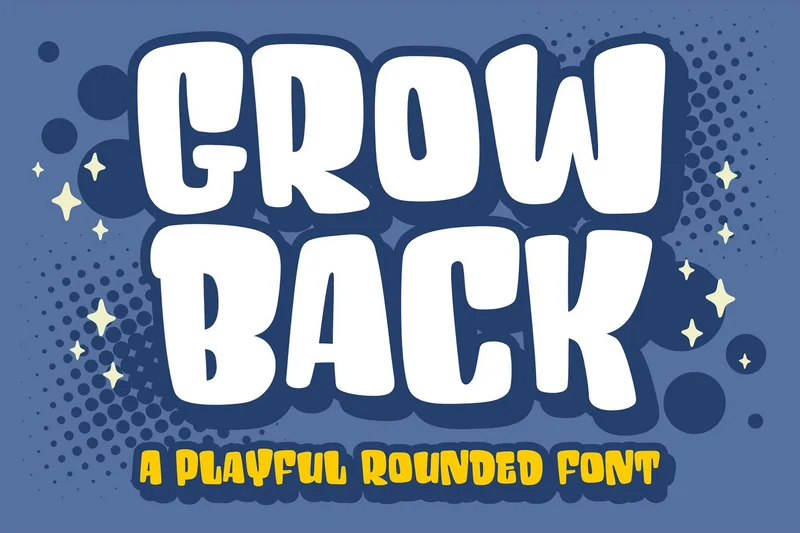
Grow Back – A Playful Rounded Font
Hello, let me introduce you to the new font I created, “Grow Back” which is made with unique and interesting characters, has a random anatomy of small and thick lines so that this font looks fun, not to forget its smooth, firm and slightly rounded shape.